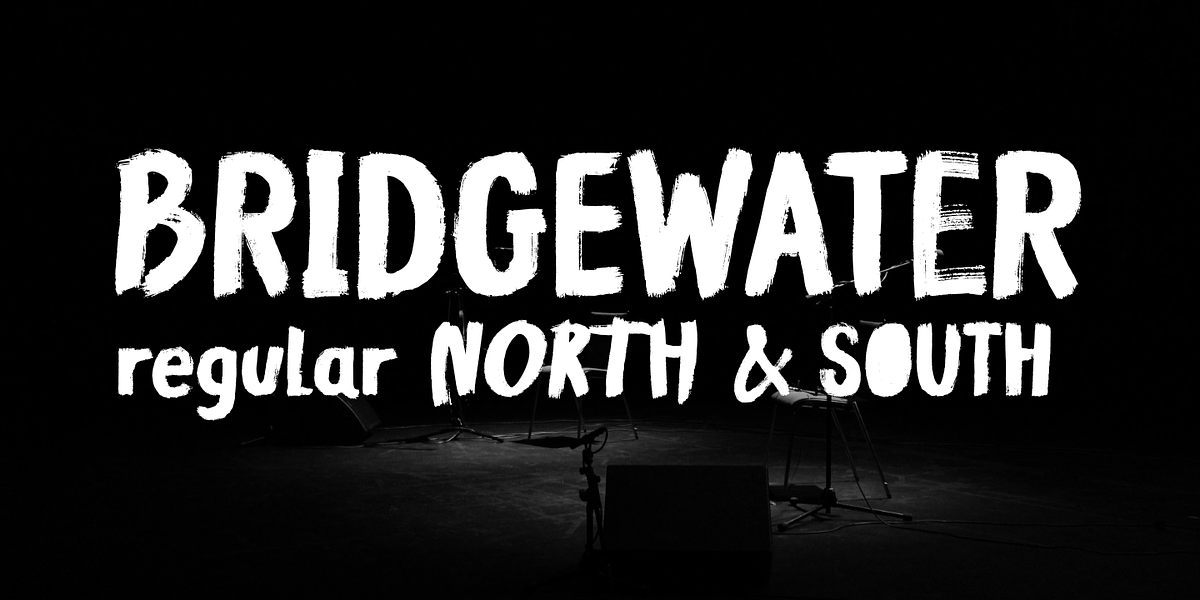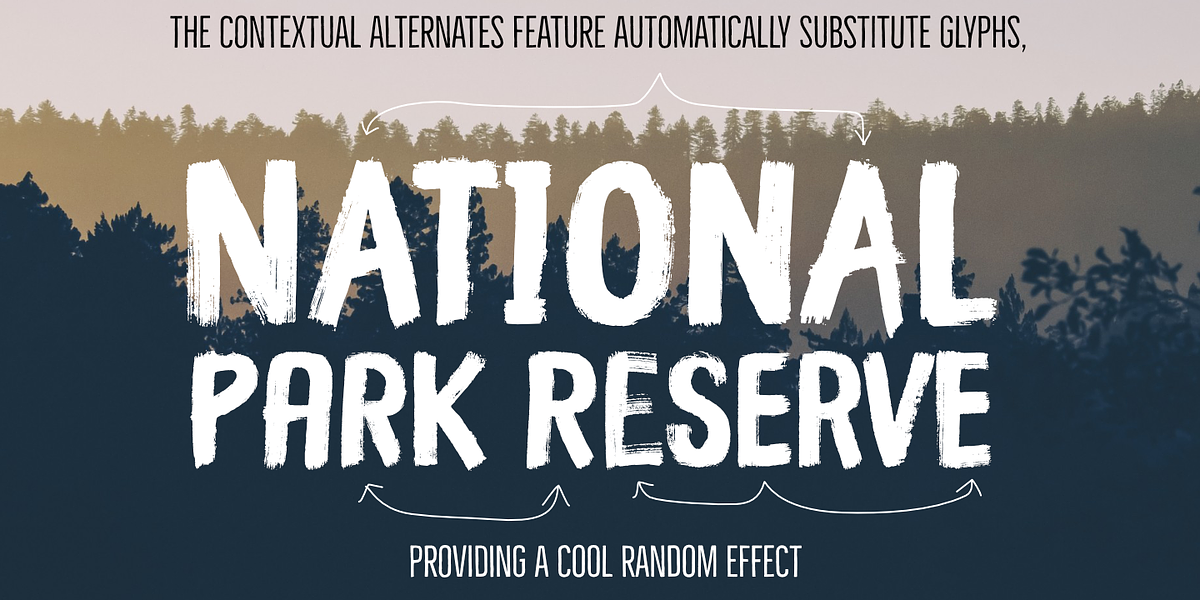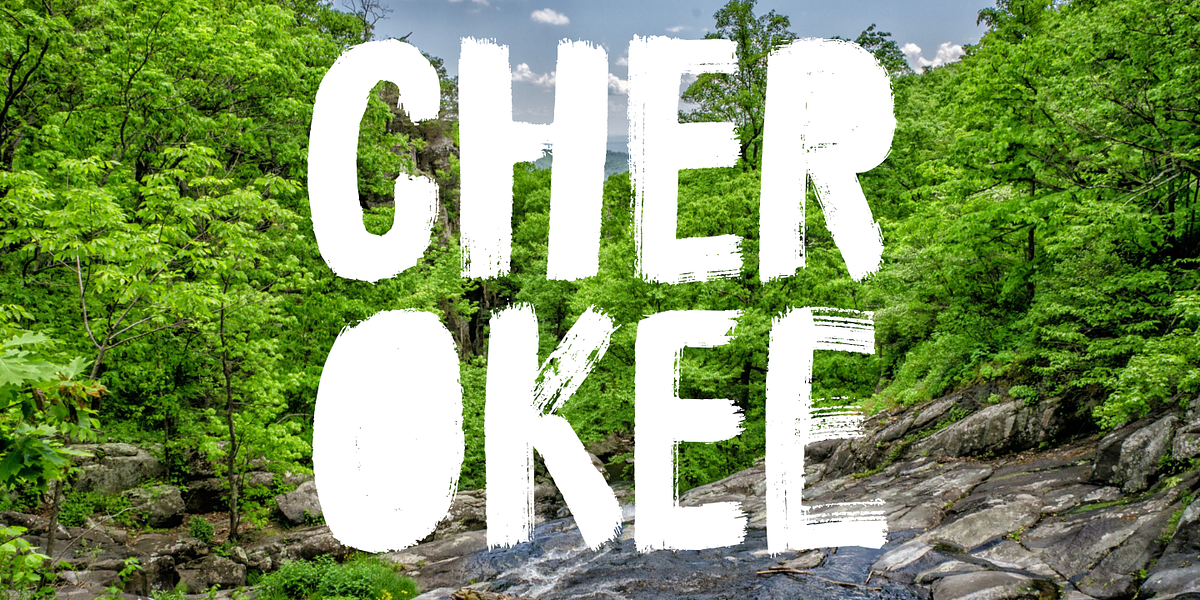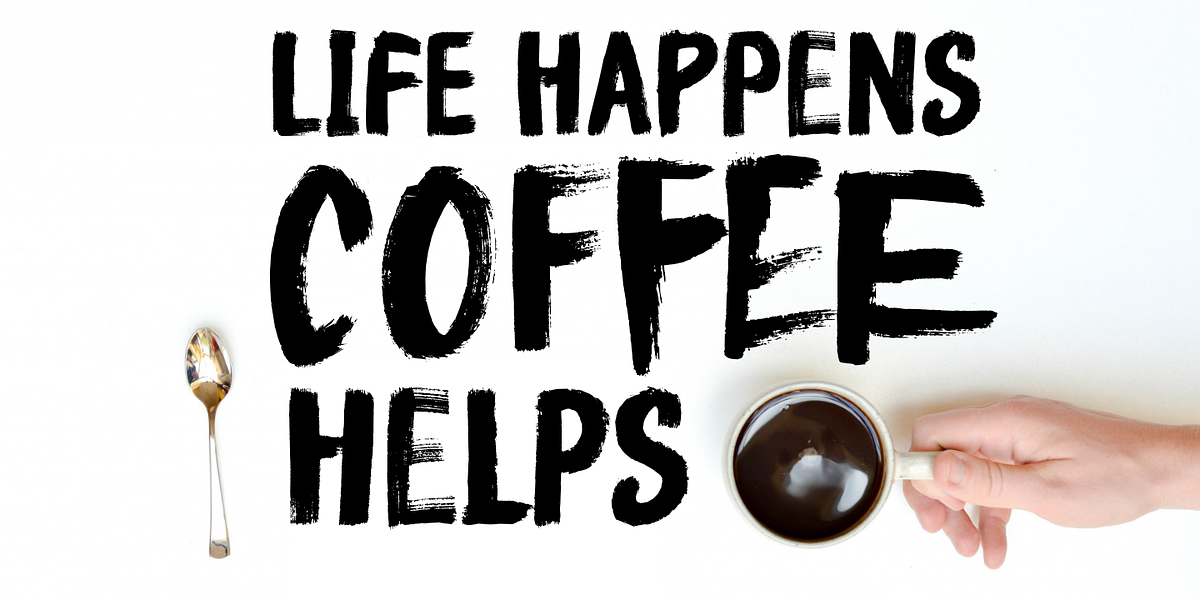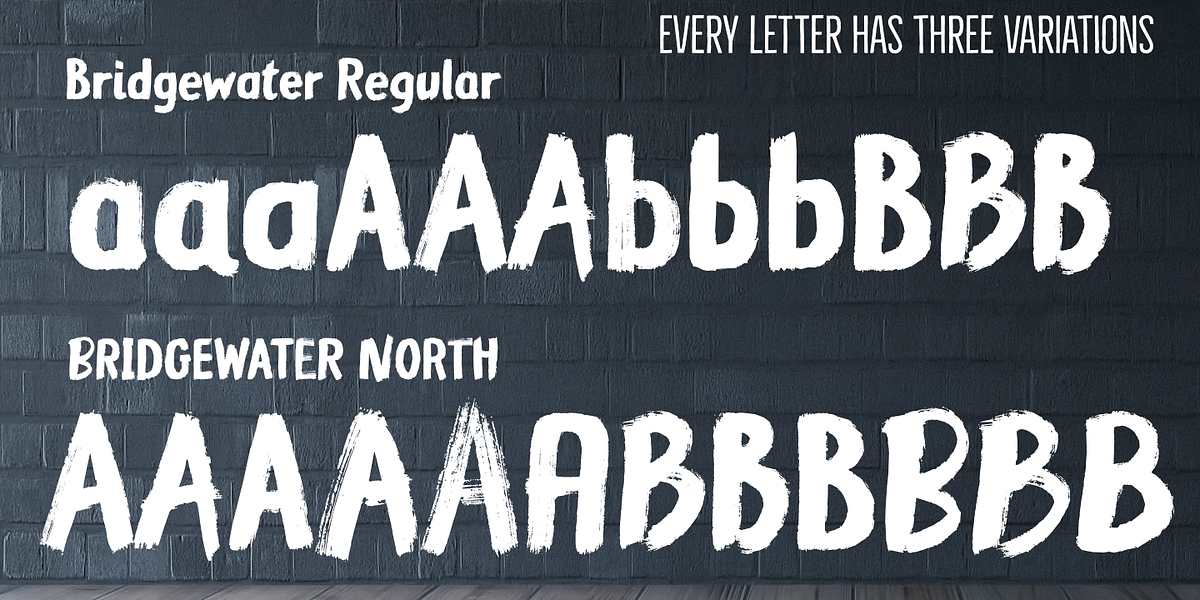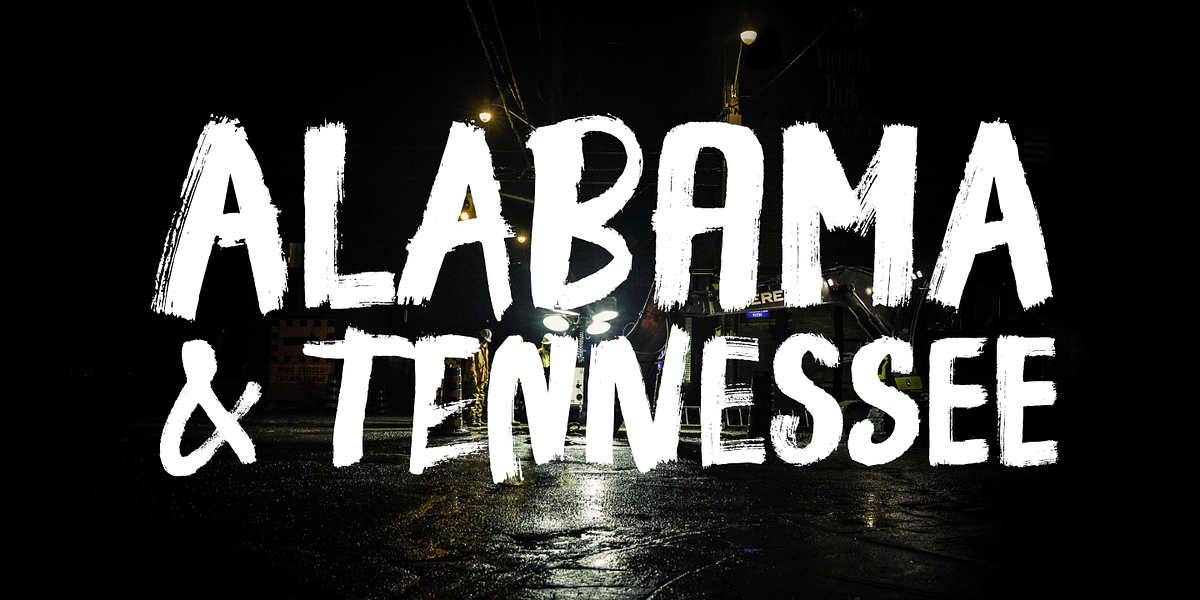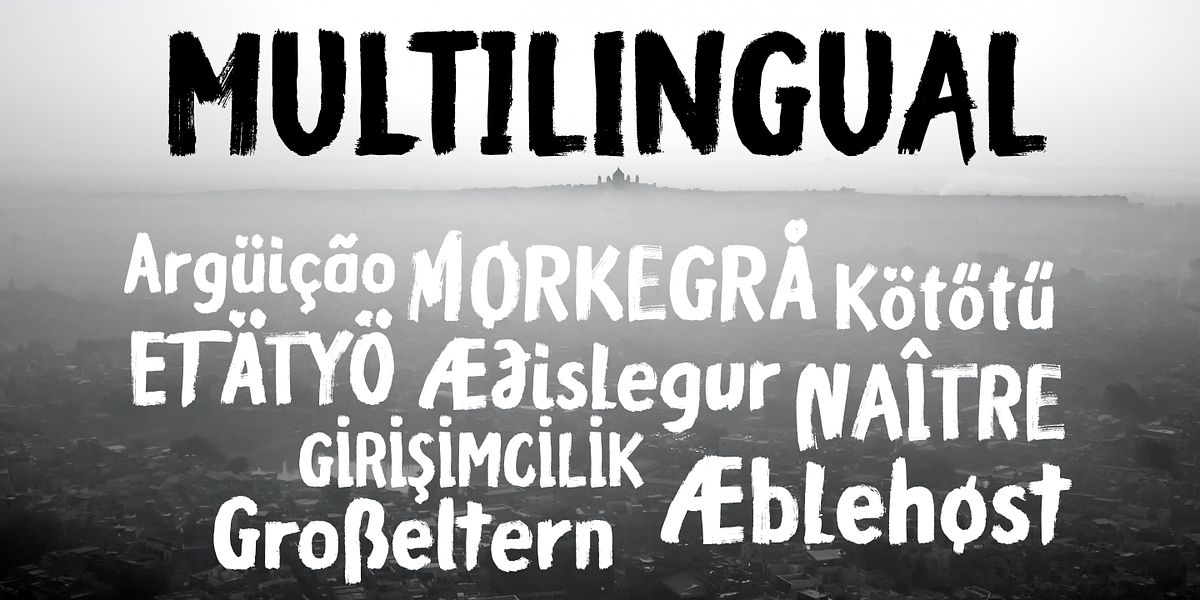
Bridgewater
Bridgewater is a hand-drawn brush script font designed for display use. Its defining feature is the inclusion of contextual alternates, meaning each letter and number has three variations that are automatically cycled in OpenType-compatible applications. This creates a natural, handwritten effect. The font supports a wide range of languages, including Western, Central and Eastern European, Baltic, and Turkish.